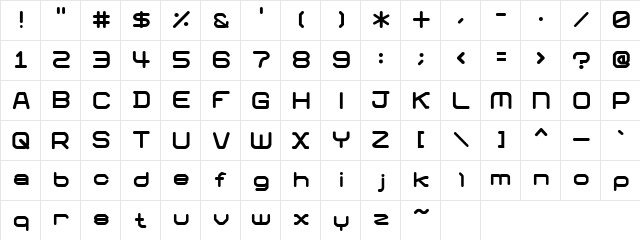
01 DigitGraphics Regular
Design Context for 01 DigitGraphics Typeface
01 DigitGraphics has a distinctly futuristic character, with geometric precision and clean angles that feel at home in technology, gaming, and sci-fi contexts.